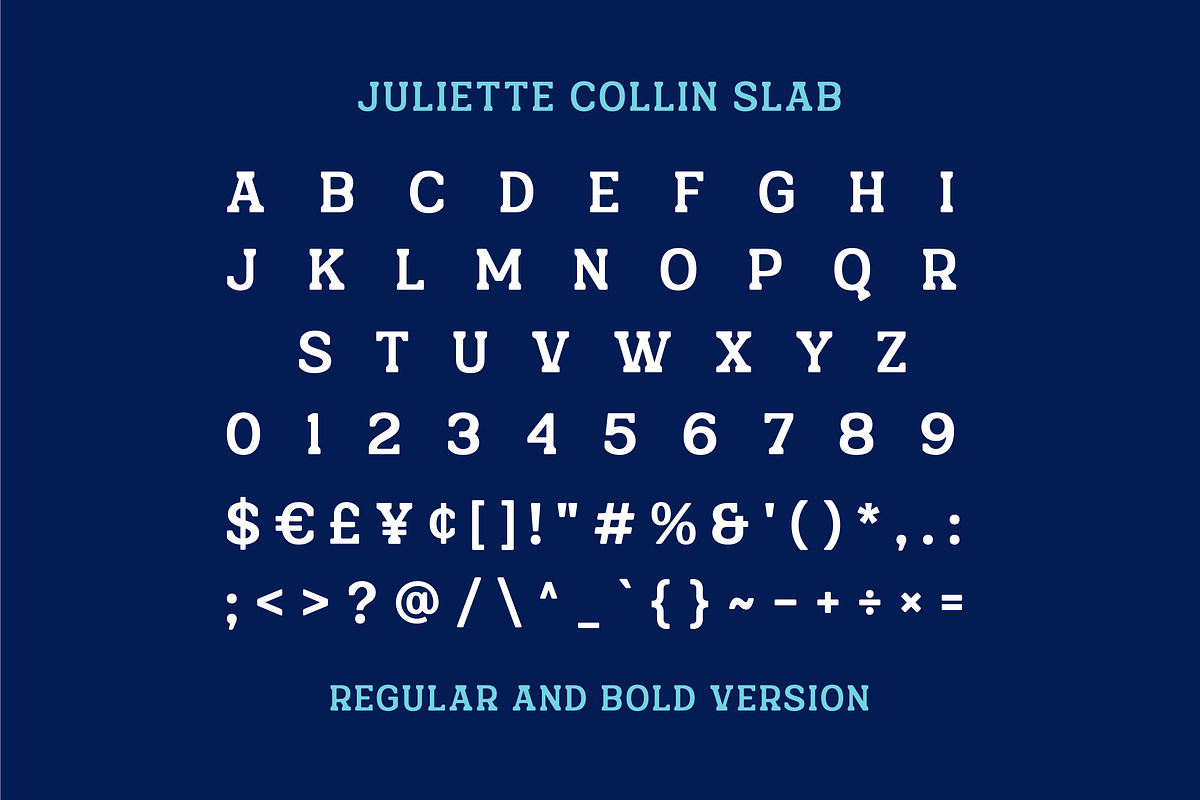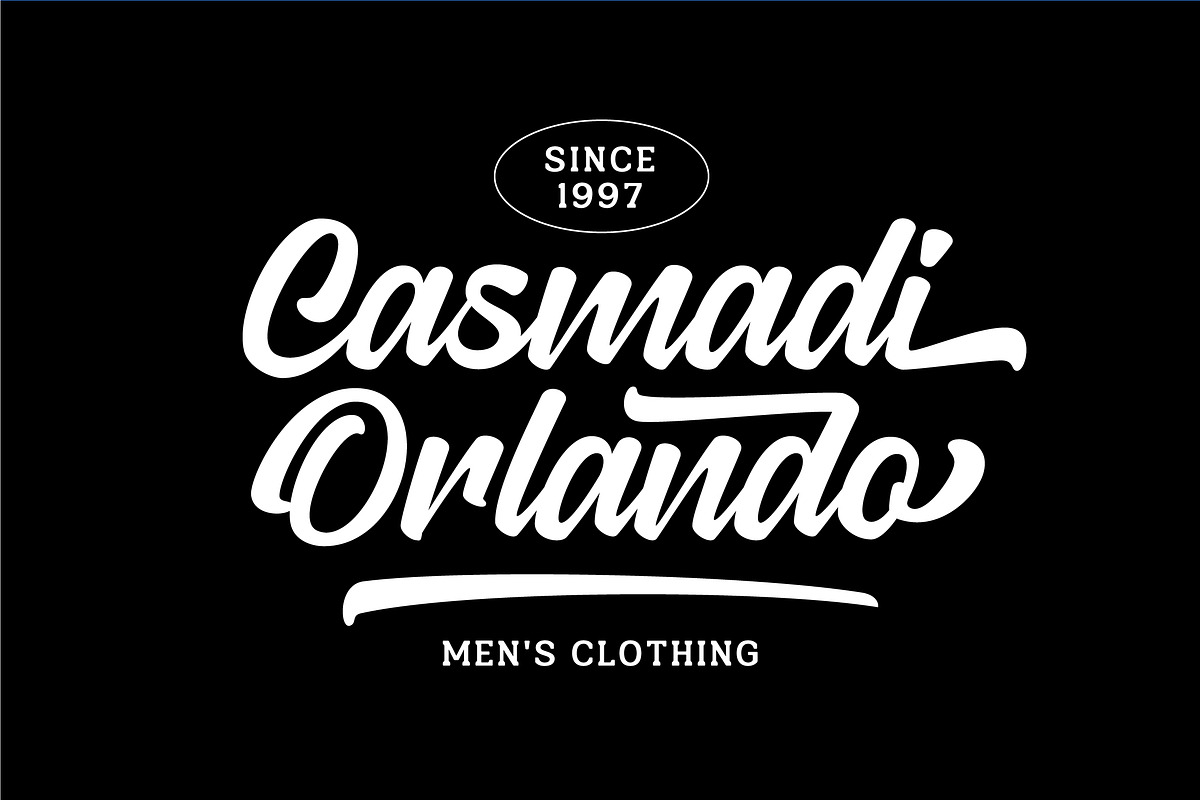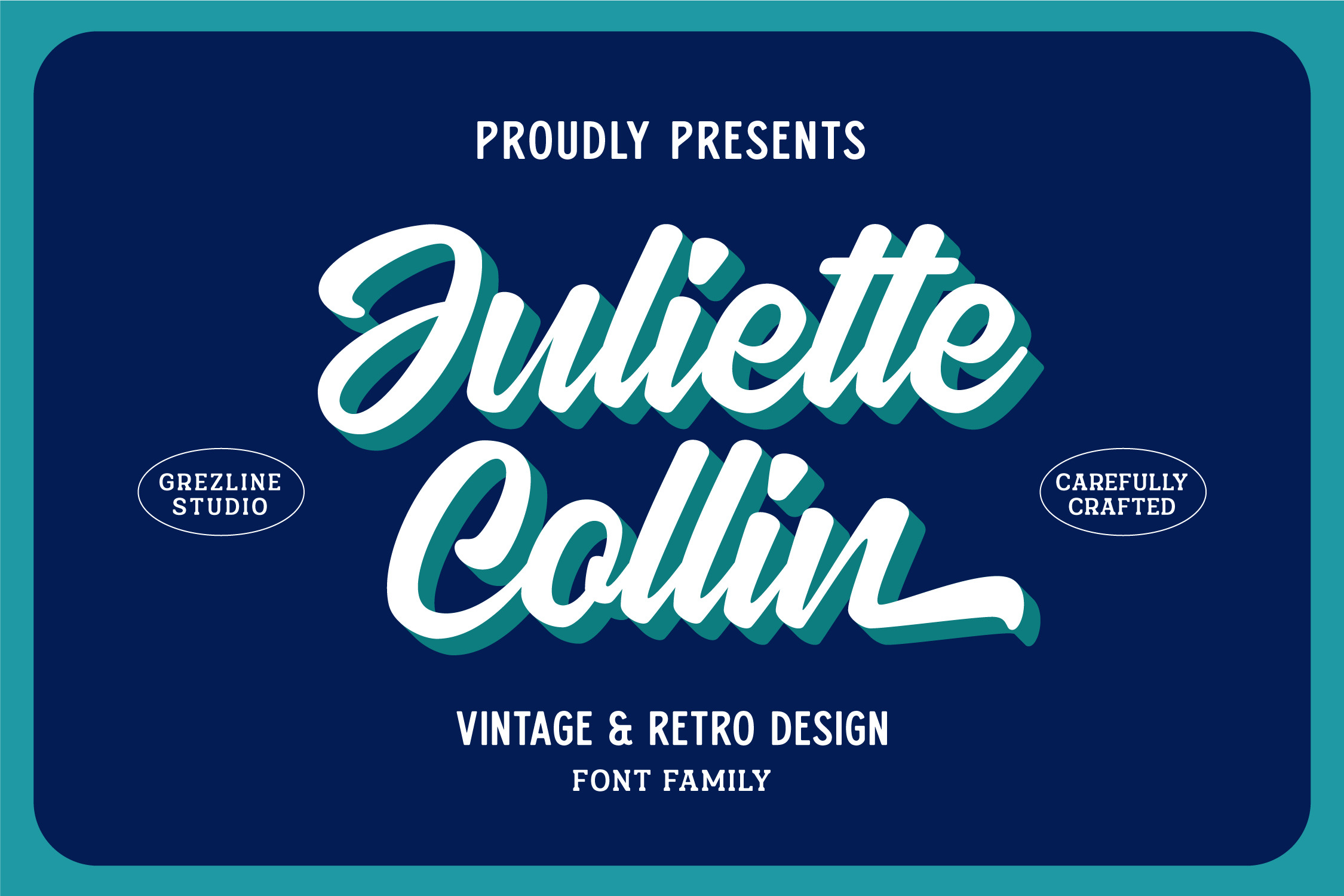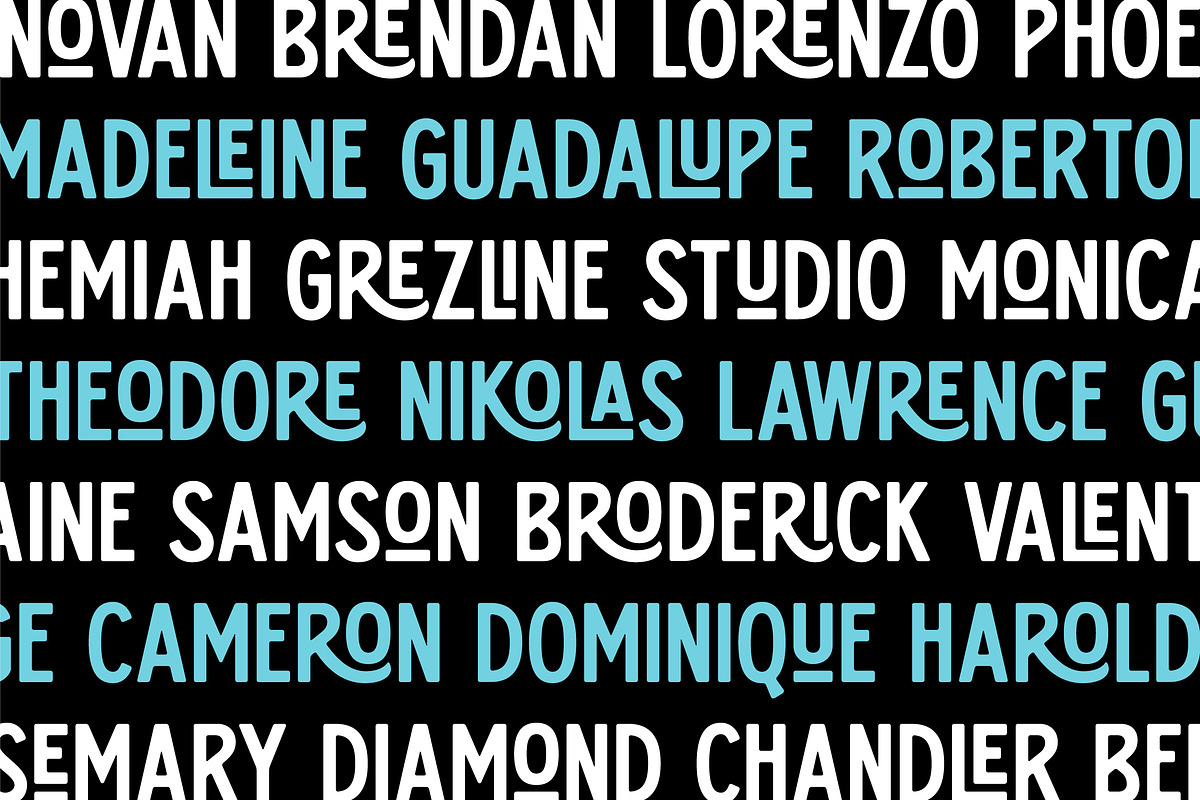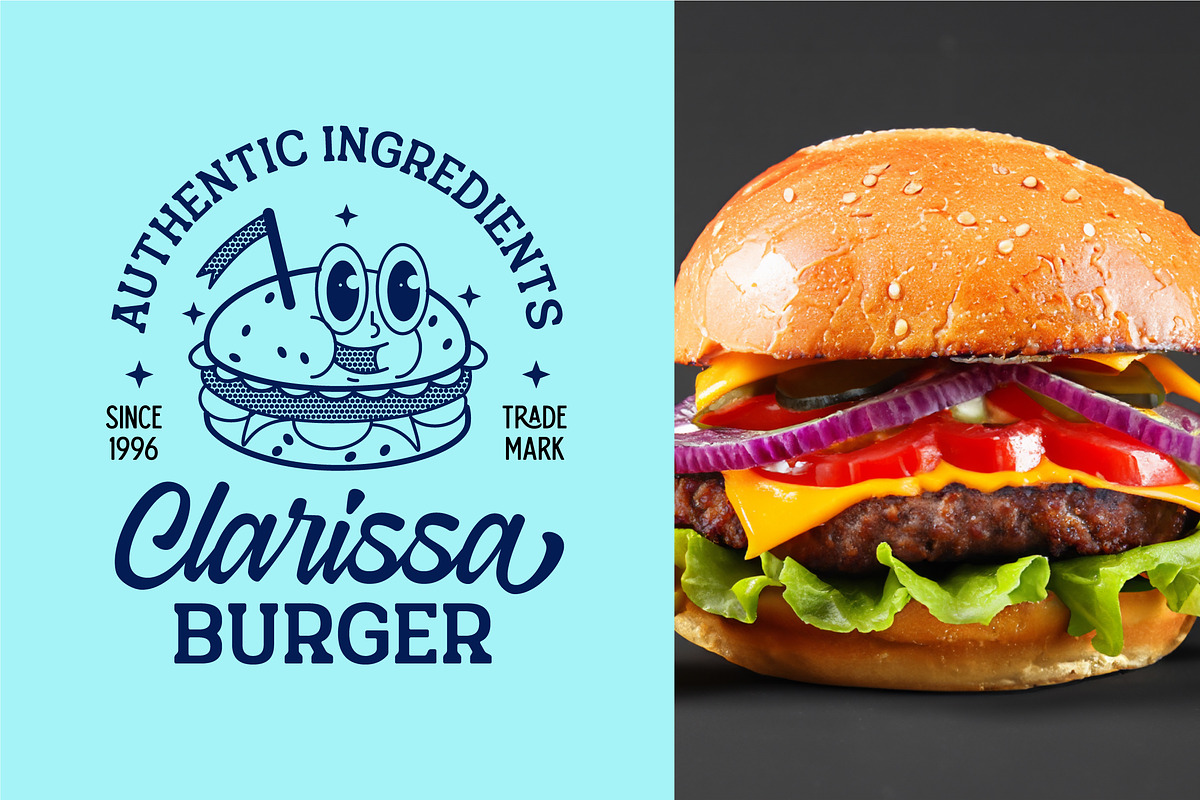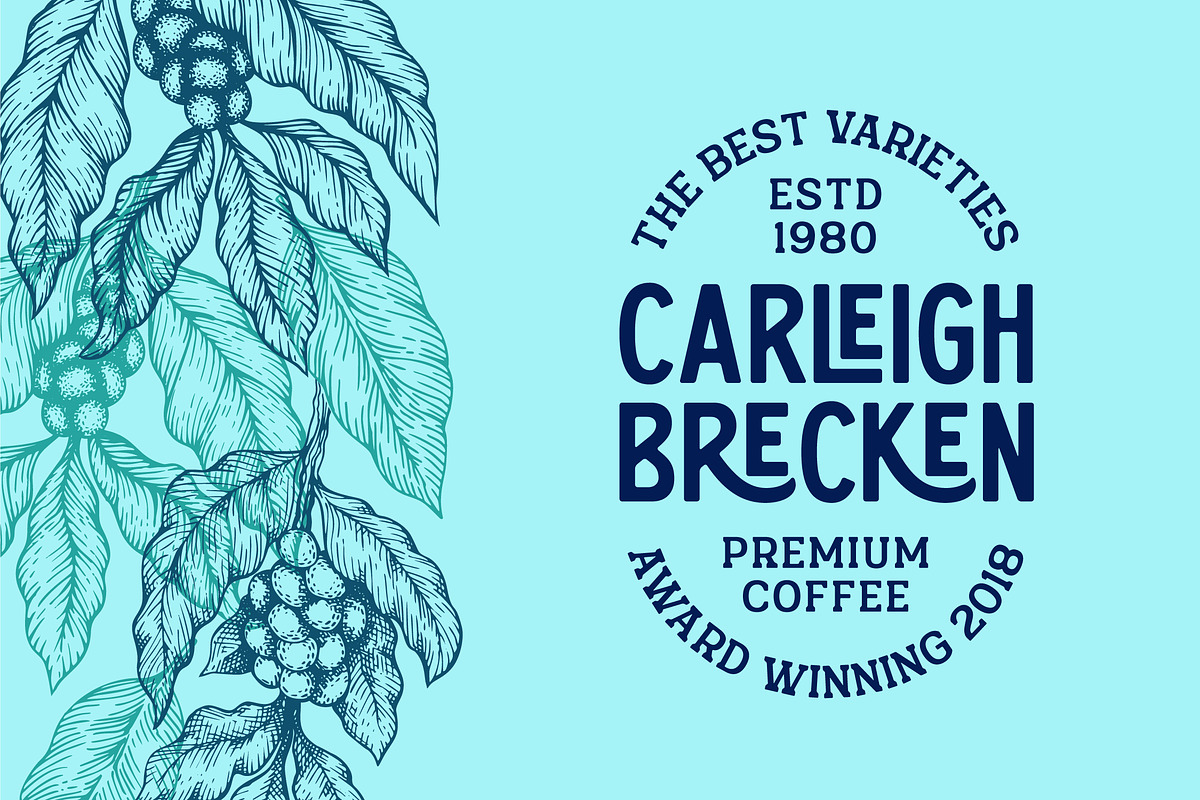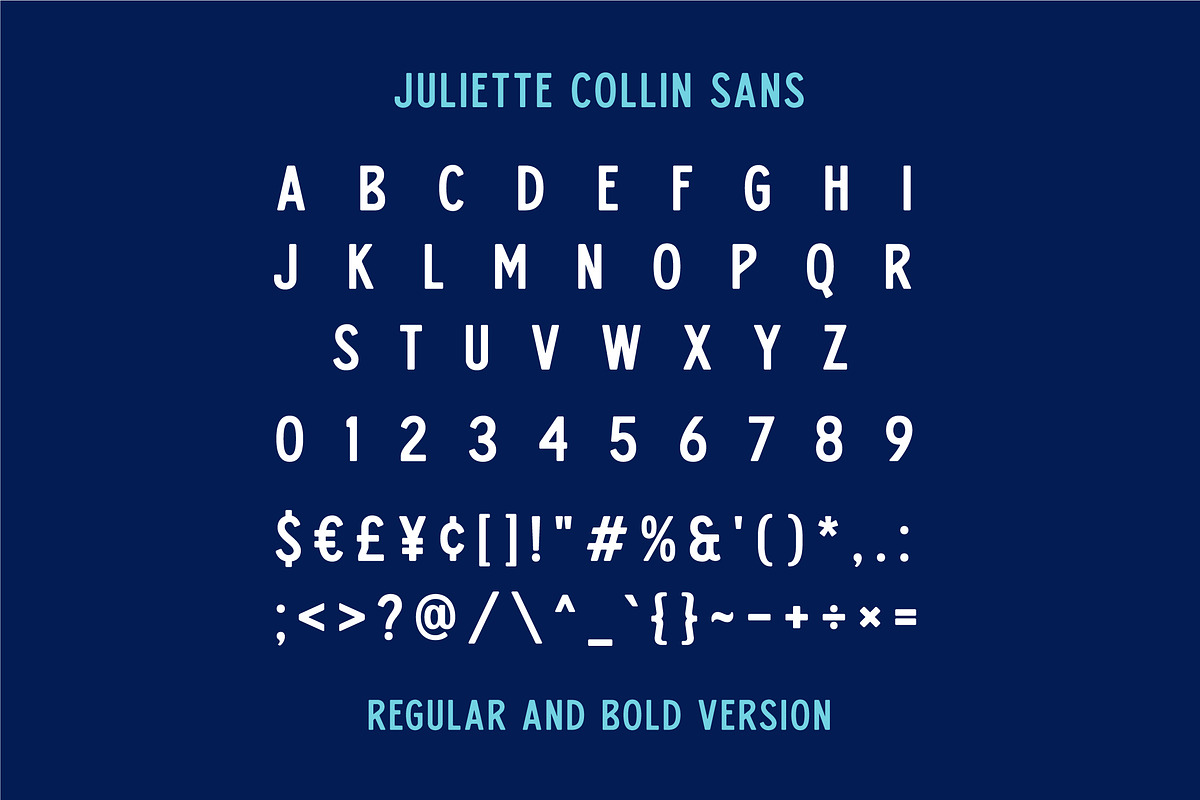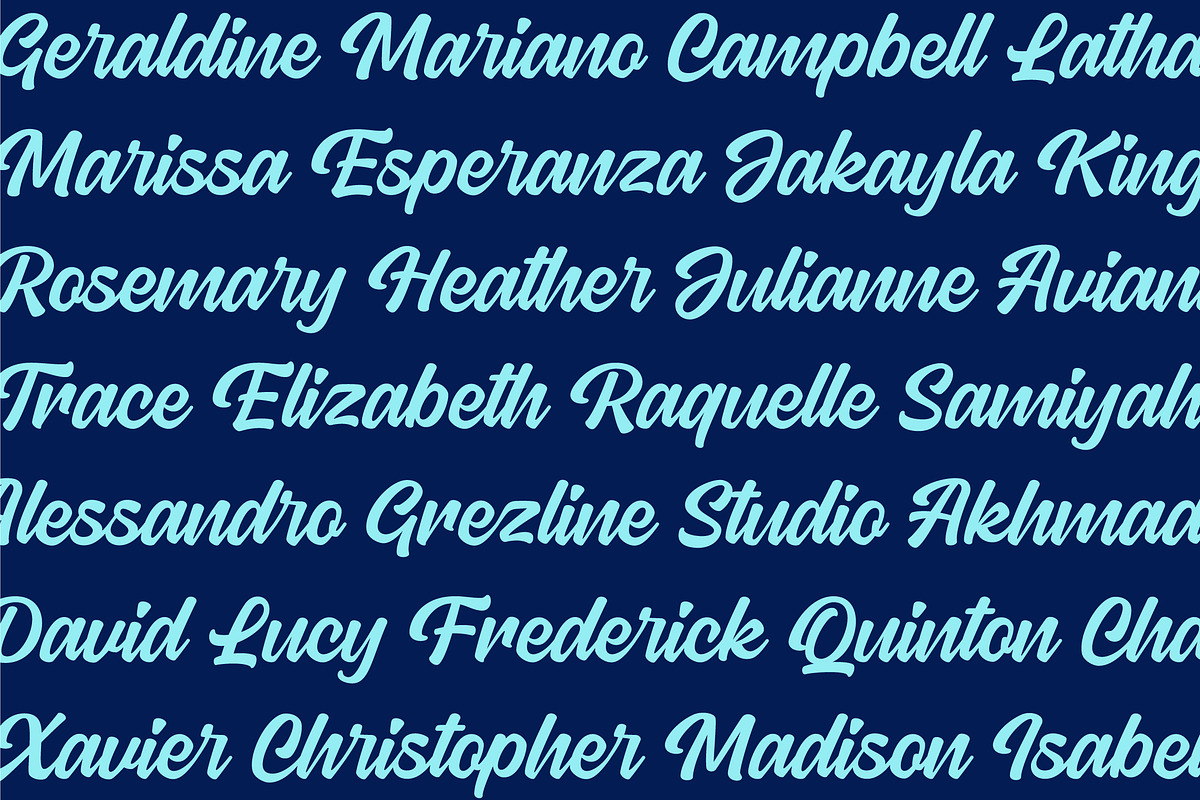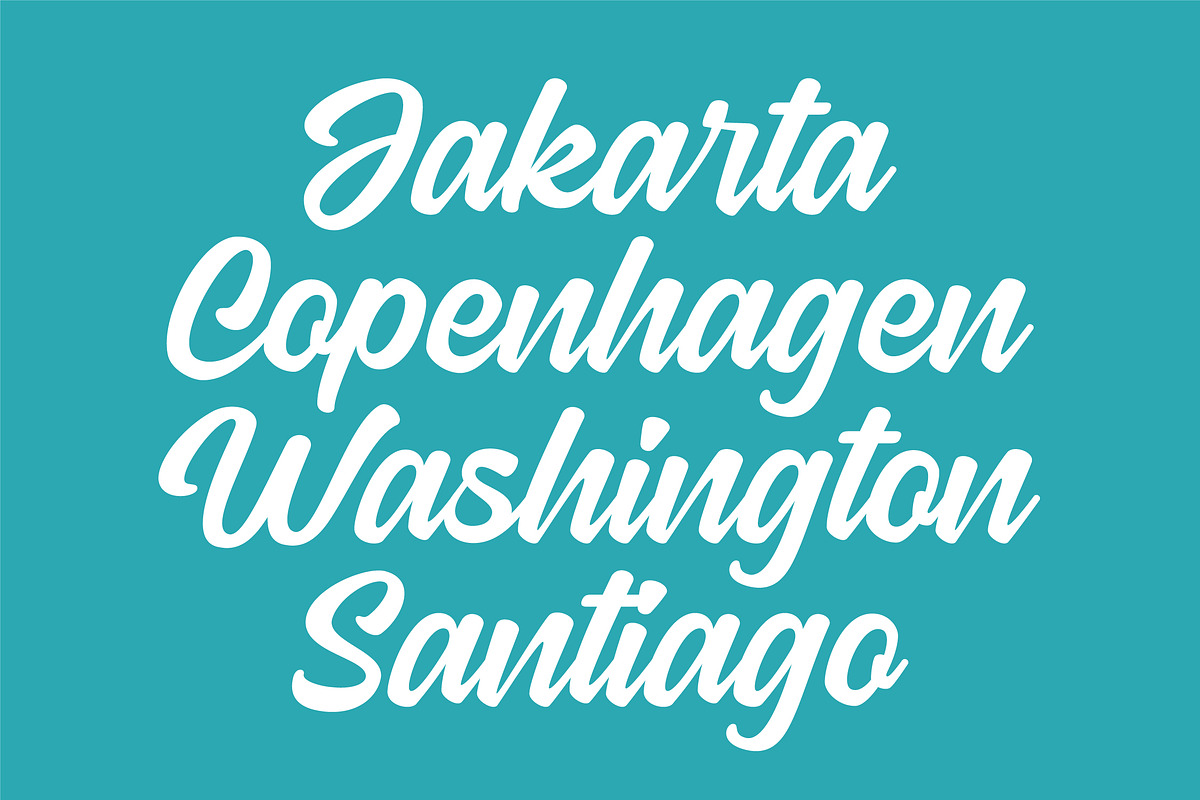
Juliette Collin - Vintage Font Famil
Juliette Collin is a font family consist of script, sans serif and slab with a charming vintage personality. They also have strong and bold characteristics. Juliette Collin is perfect for headings, covers, posters, logos, quotes, product packaging, merchandise, social media and much more!
- Alternate & Ligature
- Multilingual Language